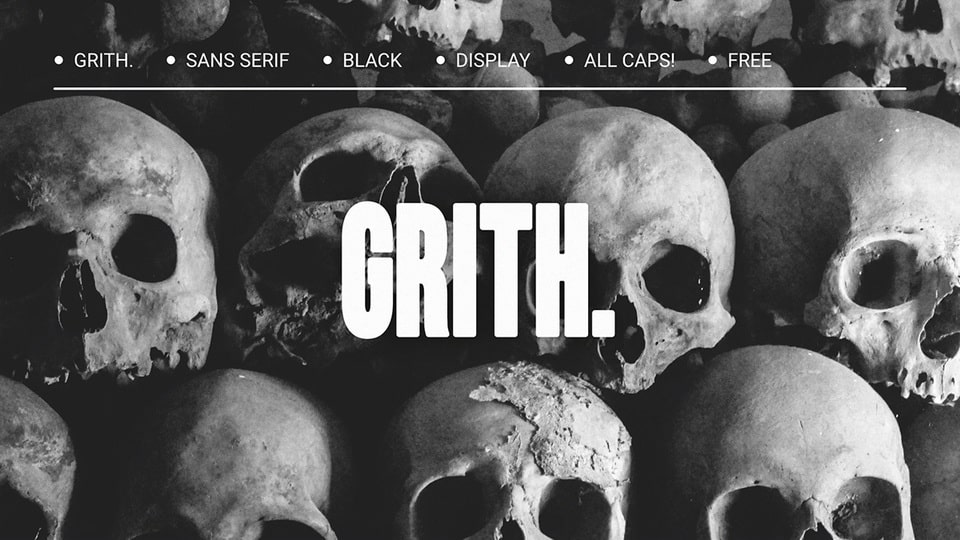
Download Grith font, a bold and condensed display typeface crafted as a modified version of Bebas Neue. Grith strikes a balance between strength and subtle sophistication; a powerful yet refined look.
Designer: Yosi Nasution